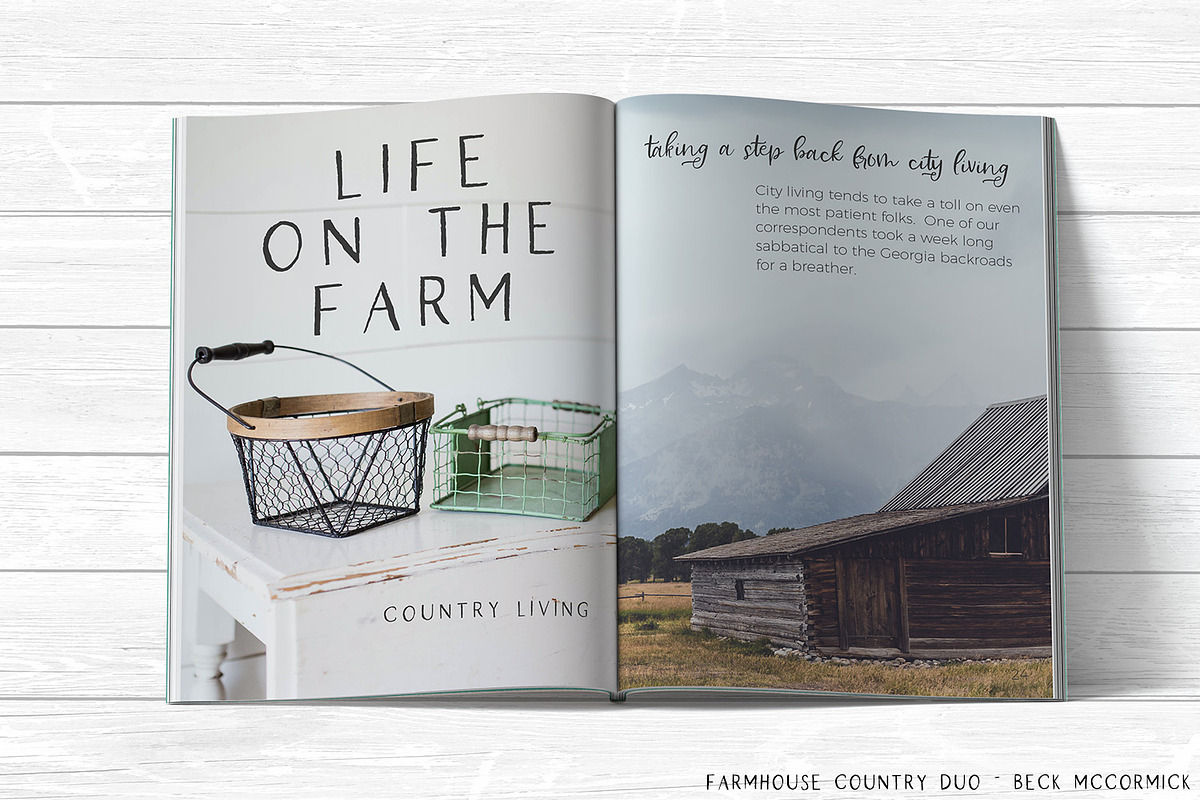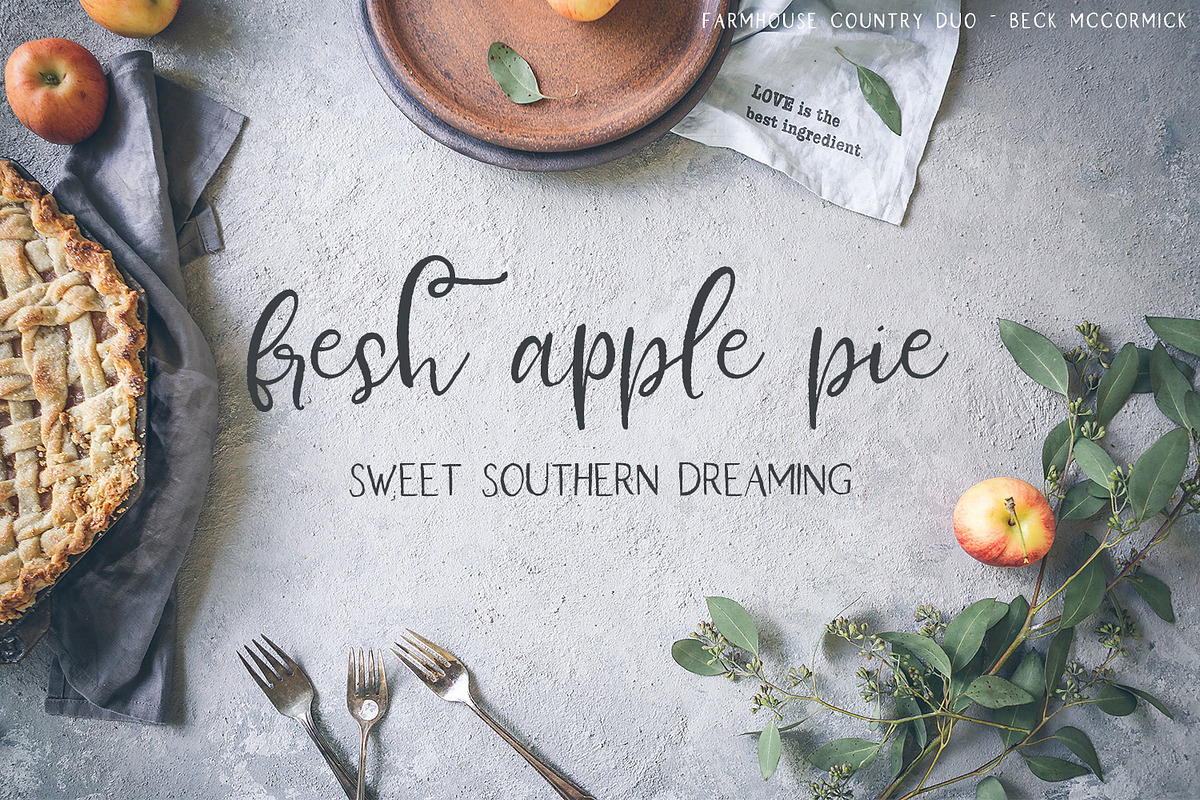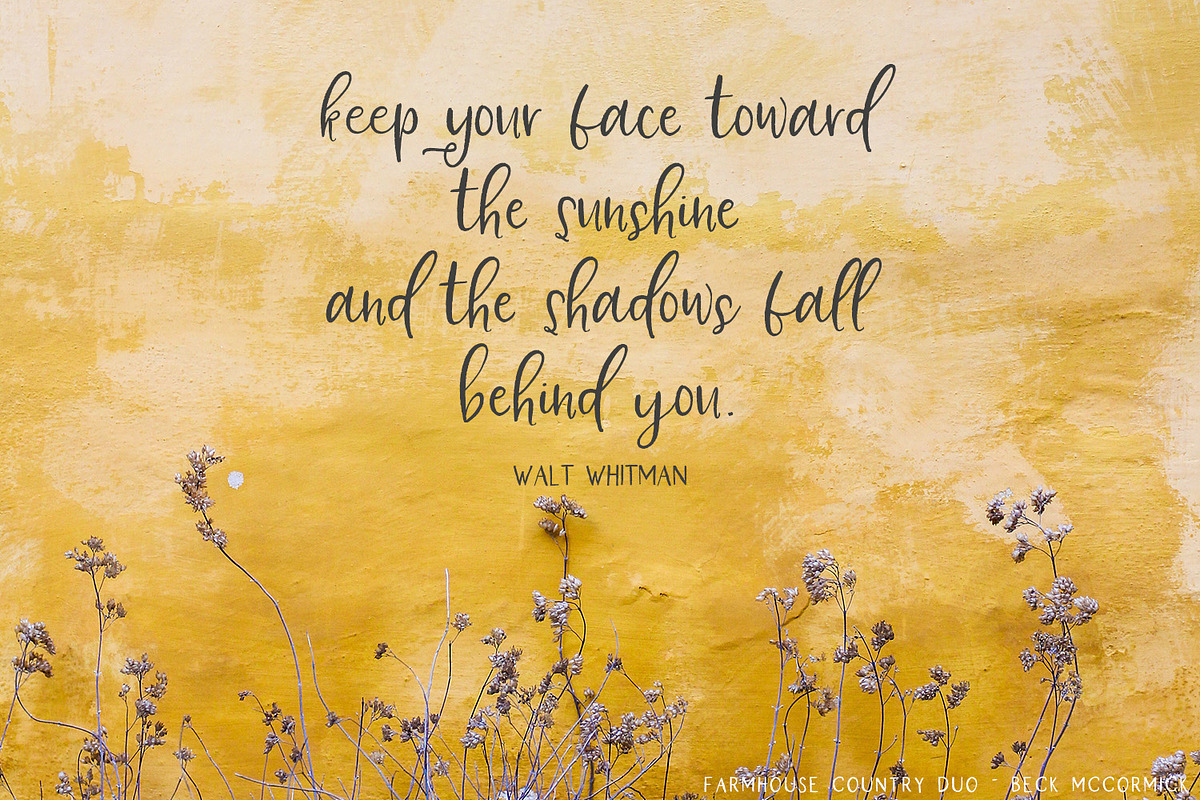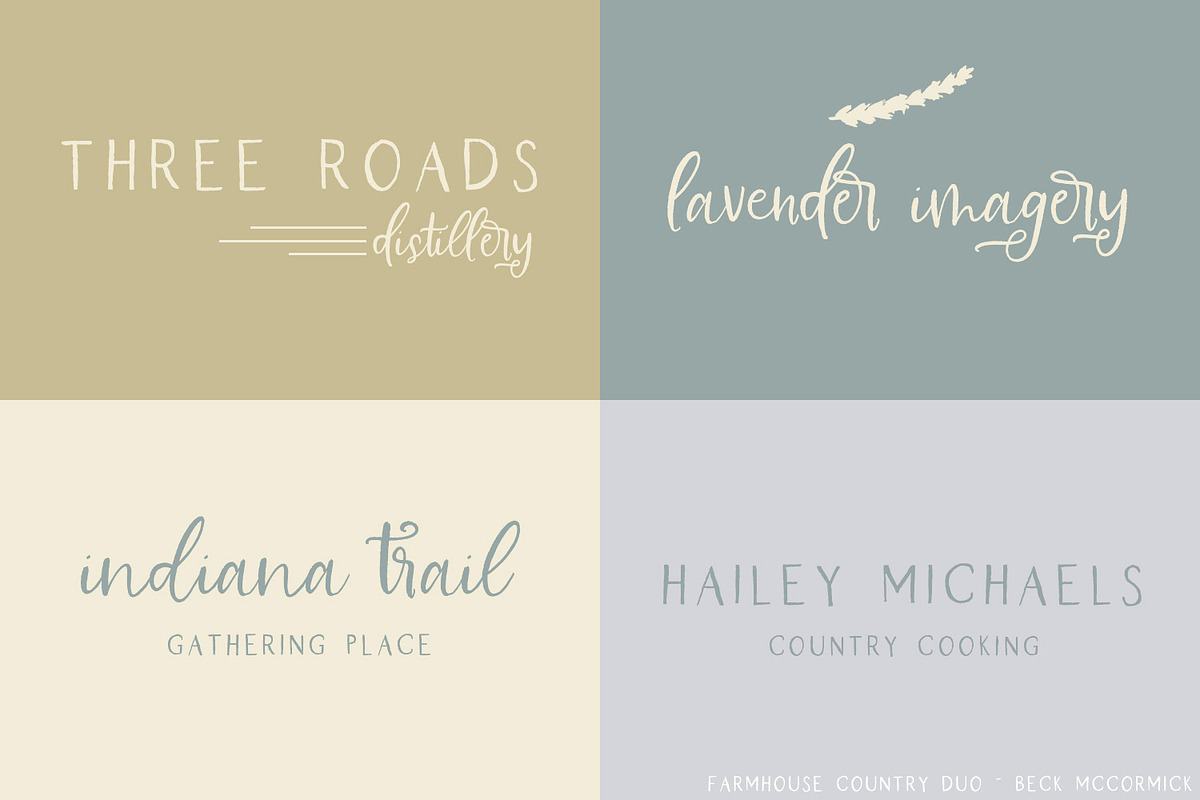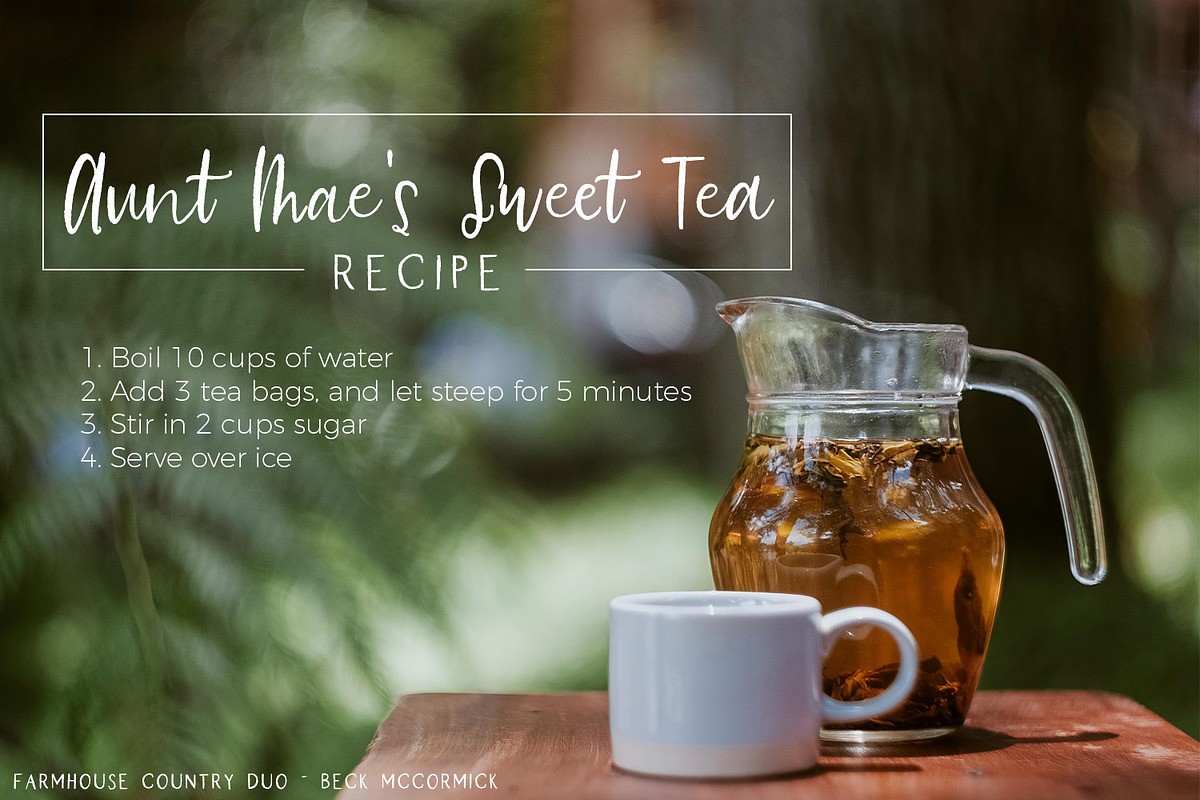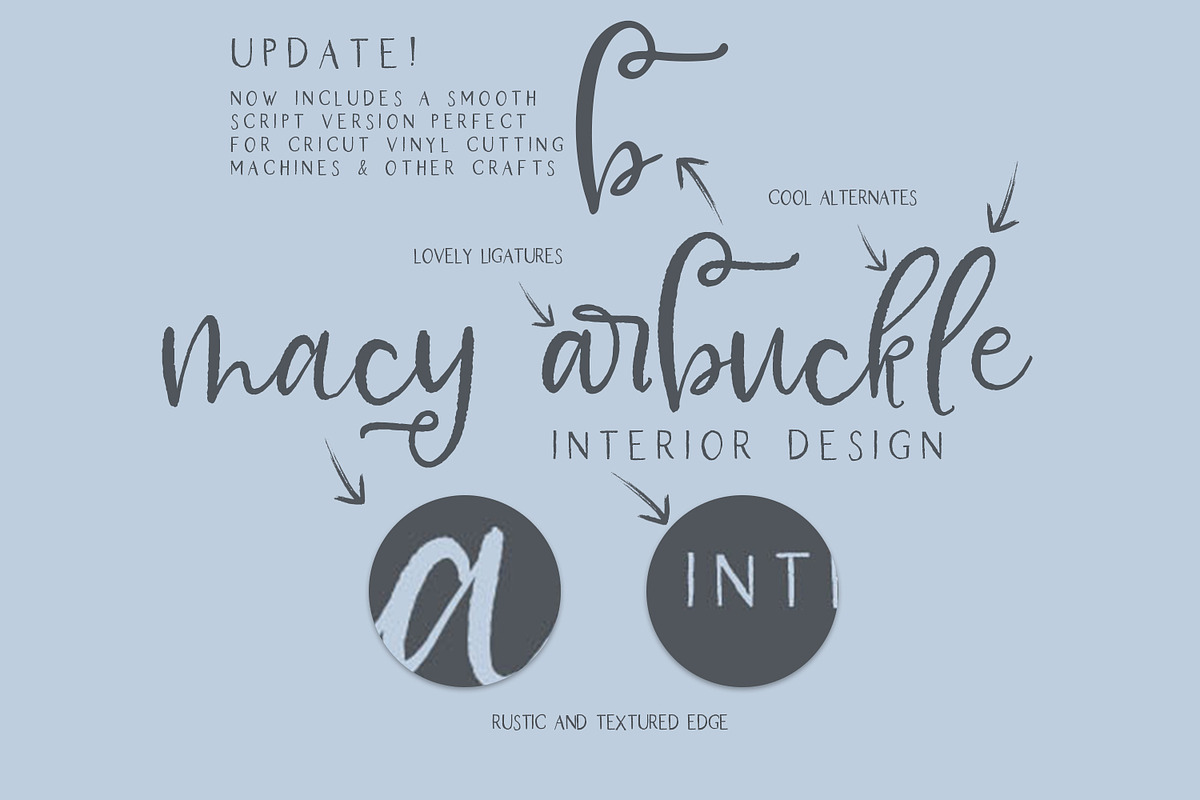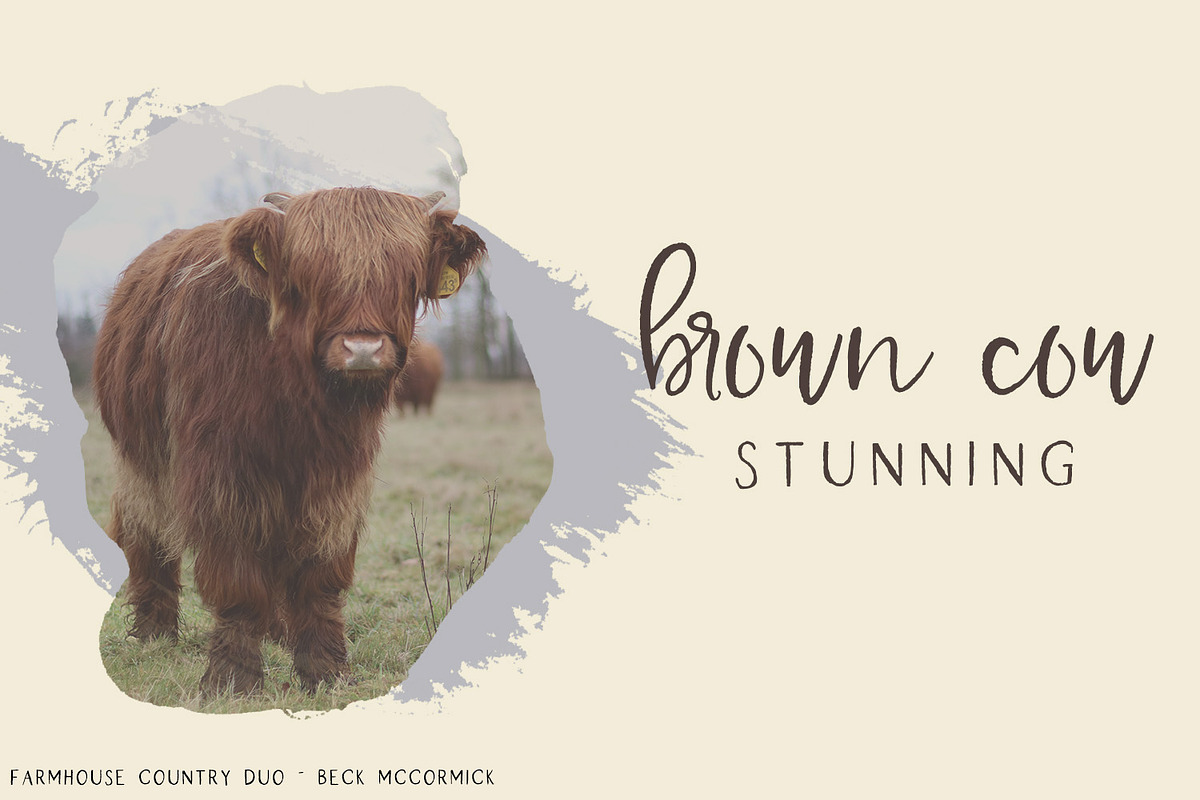
Farmhouse Country Rustic Font Duo
Welcome to Farmhouse Country, a stunning textured font duo sure to be perfect for all of your shabby chic font needs. This duo will look fabulous on your wedding invitation design, your shabby + feminine brand, t-shirts or print design, and more!
July 2021 Update Farmhouse Country Script now includes a smooth version! That makes Farmhouse Country the perfect Cricut font for all of your farmhouse chic designs.
Farmhouse Country Script is a robust, easy to read, hand-lettered font with a lovely textured edge — just enough rustic charm! Farmhouse Country features a full second set of lowercase letters for added diversity and making your project look like real hand-lettering! In addition, there are also some super sweet ligatures programmed in:
ar, br, dr, er, fr, gr, ir, or, pr, th, tr, tt, and ur
Farmhouse Country is PUA-encoded and includes Western & Central European language support, numbers, puncutation + symbols.
Pair Farmhouse Country with its all caps farmhand, Farmhouse Country Sans!! The sans font is all caps, and includes punctuation, Western & Central European language support!